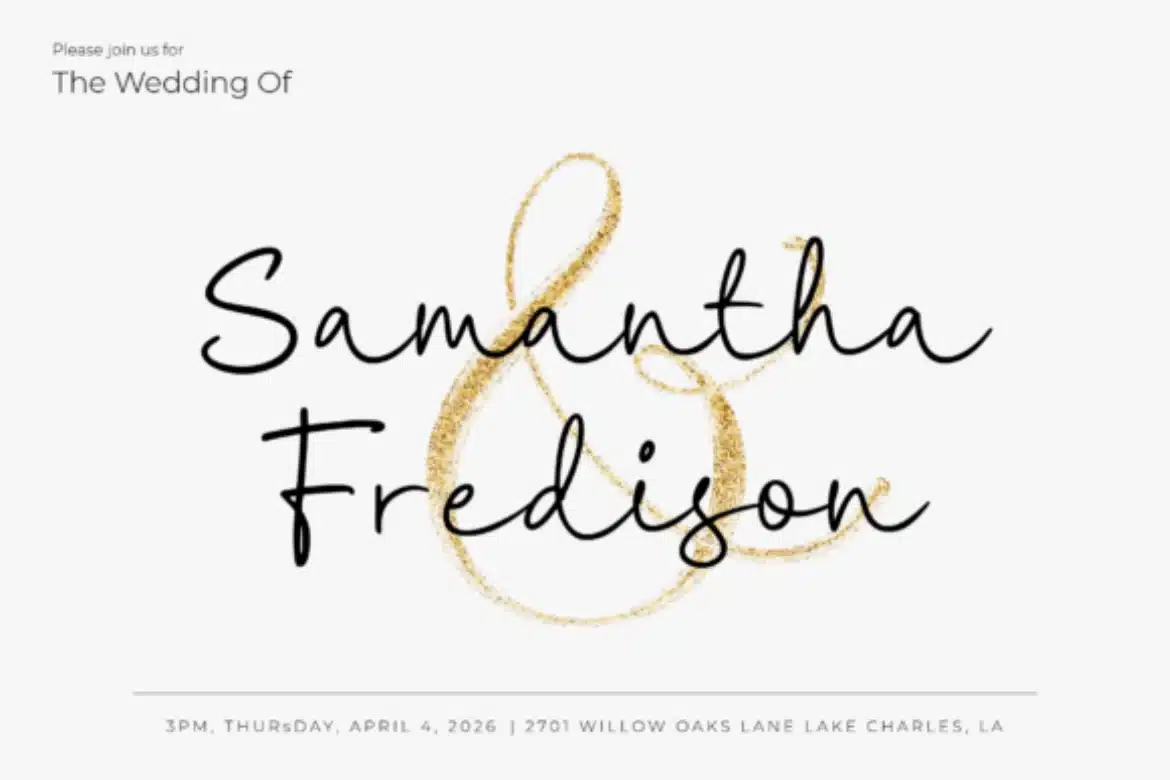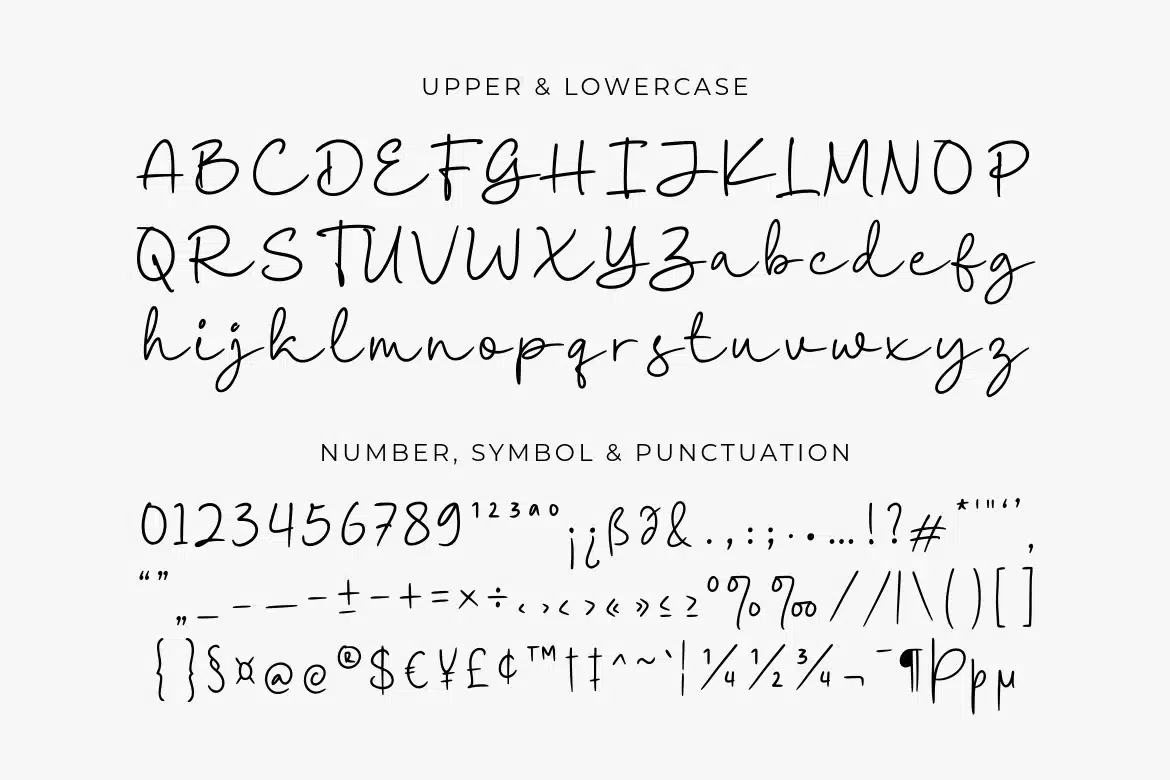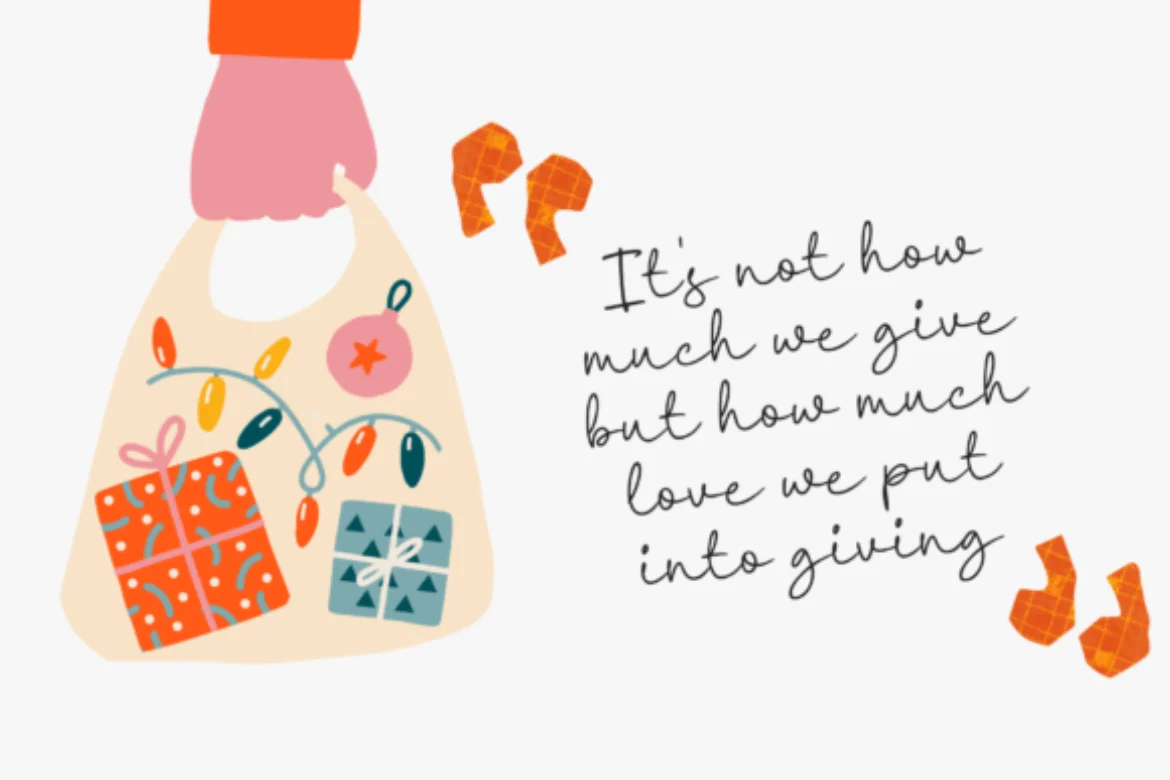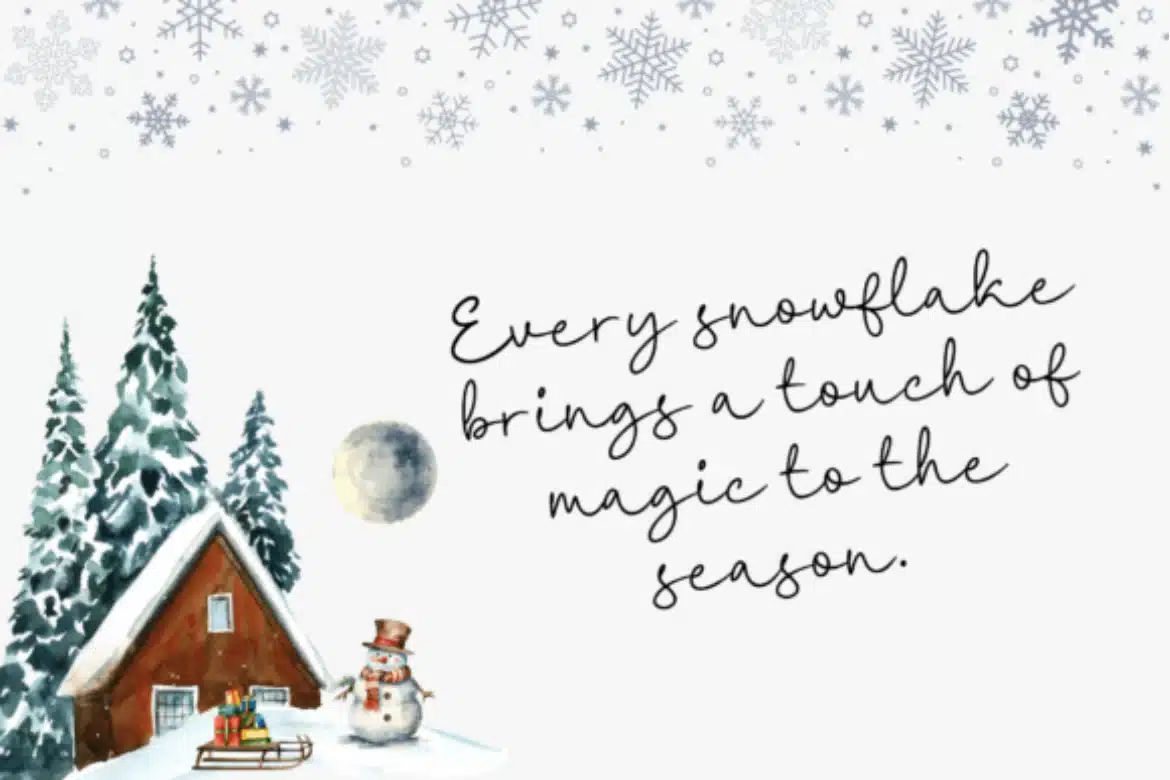
Madeira Handwriting Font
Immerse yourself in the clean elegance of Madeira Handwriting, a sophisticated handwriting-inspired font that infuses a contemporary and intimate flair into every design it shapes. Madeira Handwriting effortless curves and organic rhythm make it a standout choice for diverse applications including logo creation, quotable art, invitations, social media graphics, and product packaging designs.
Features
- A set of uppercase and lowercase glyphs
- Number, symbol, and punctuation